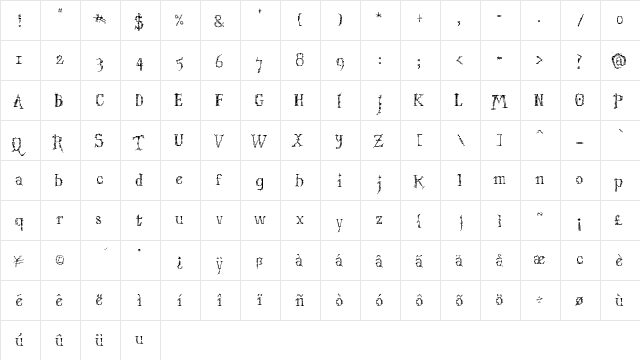
Struct-destruct Serif 3.2 Regular
Designerpolszik
Design Context for Struct-destruct Serif 3.2 Typeface
Struct-destruct Serif 3.2 carries the refined structure of traditional serif typography, with bracketed terminals and considered proportions that communicate credibility and craft.
Pro Tip: Set Struct-destruct Serif 3.2 with slightly loose tracking in headlines to let each letterform's detail read clearly at display sizes.